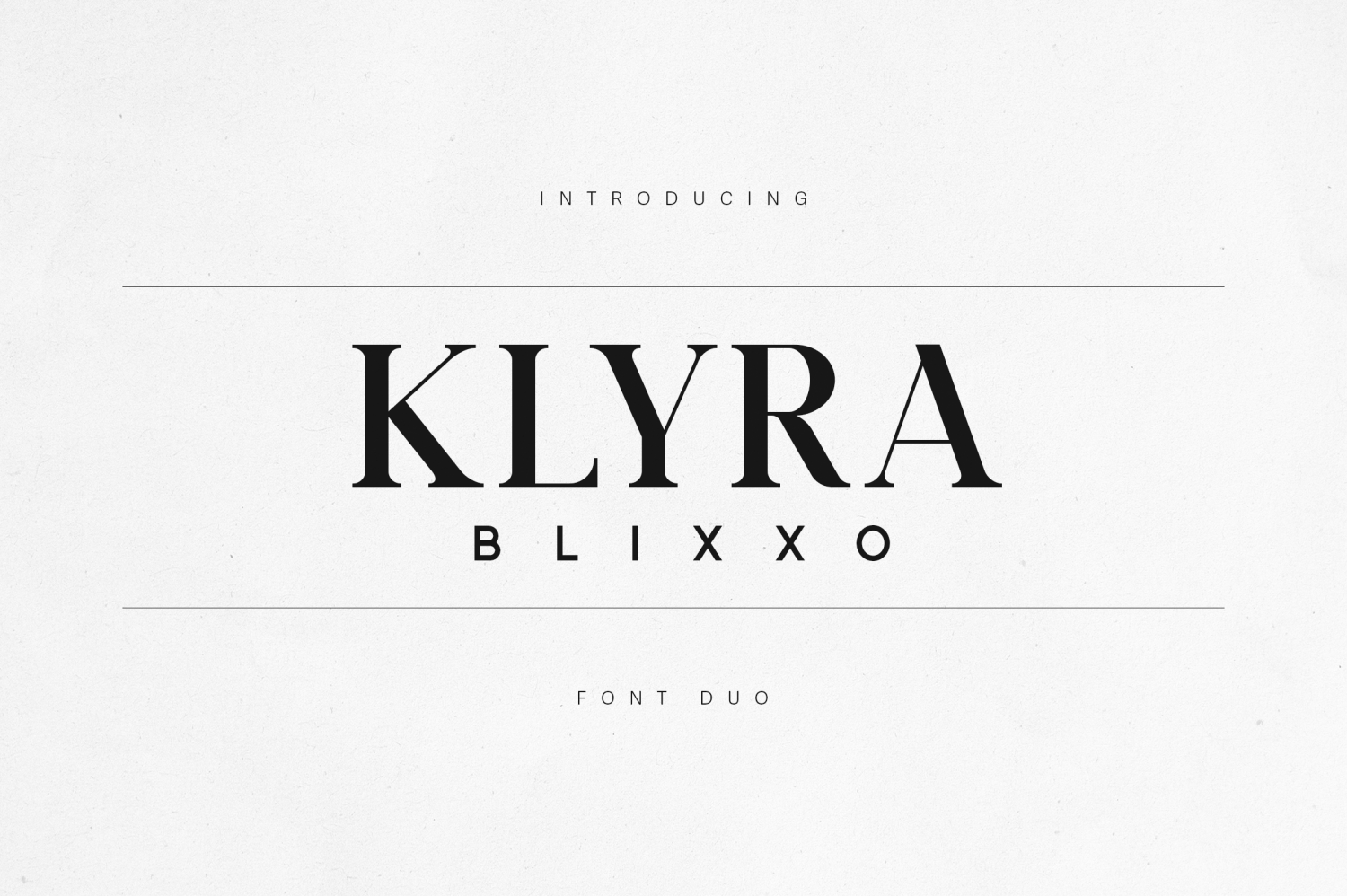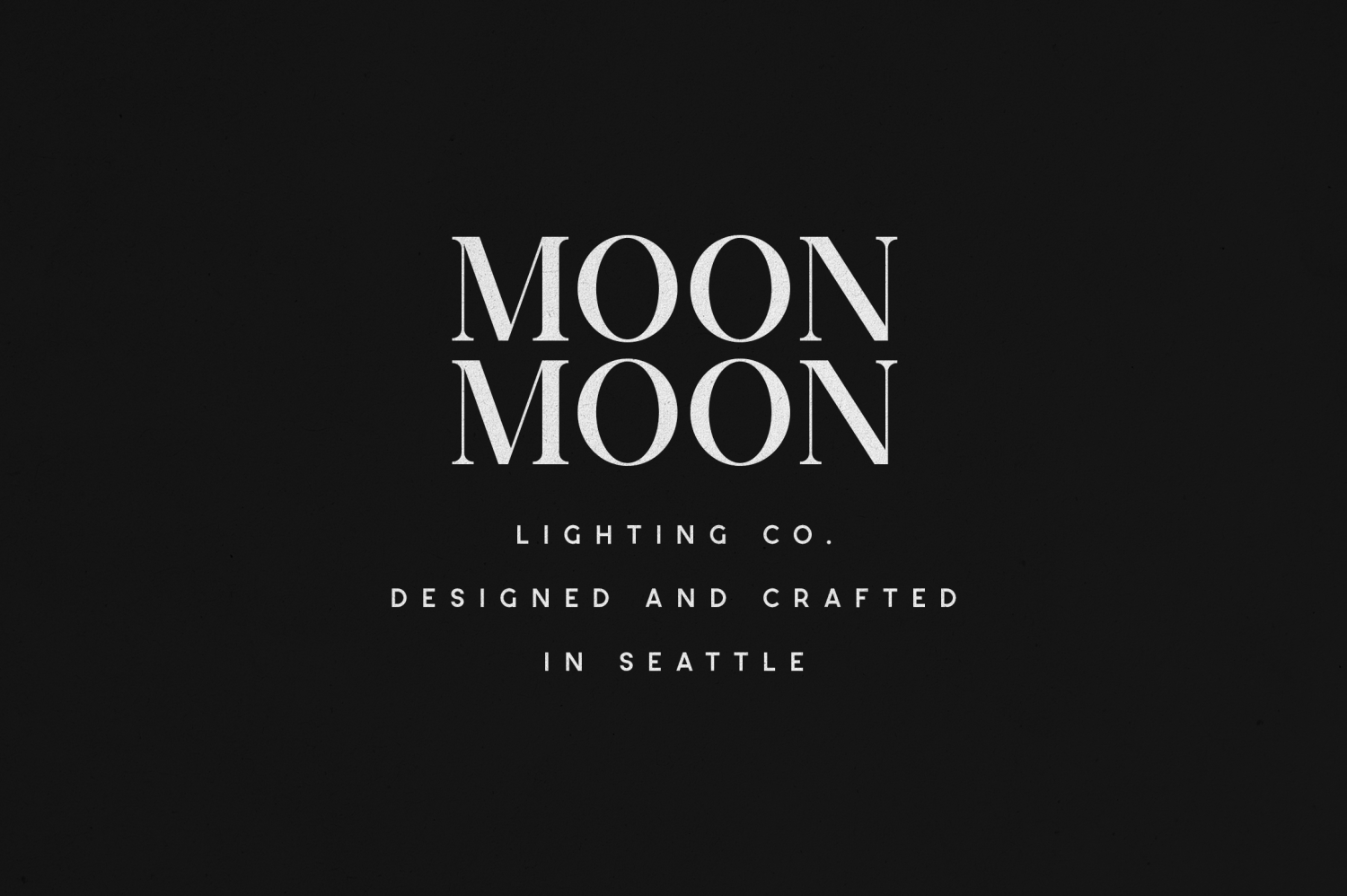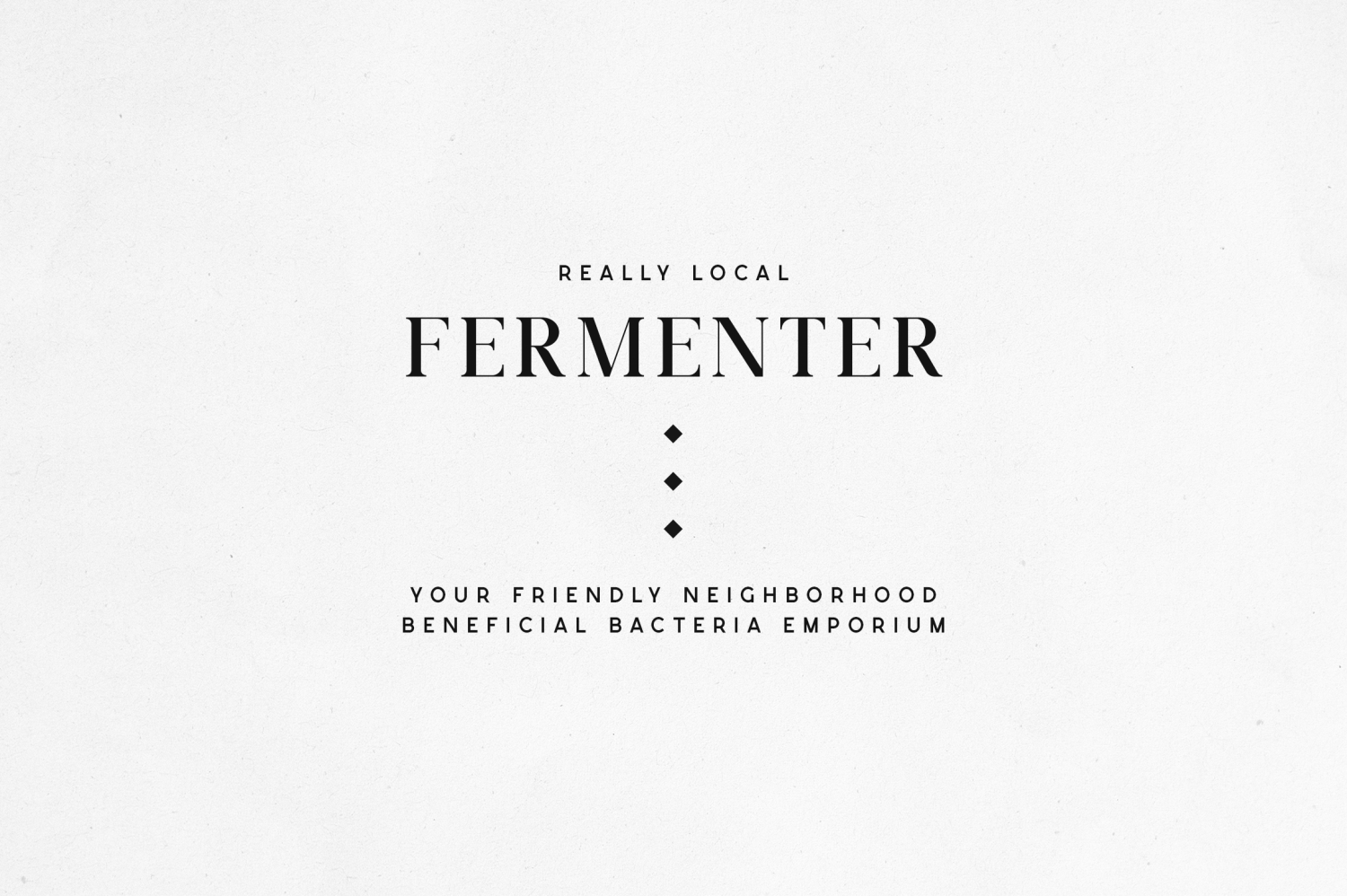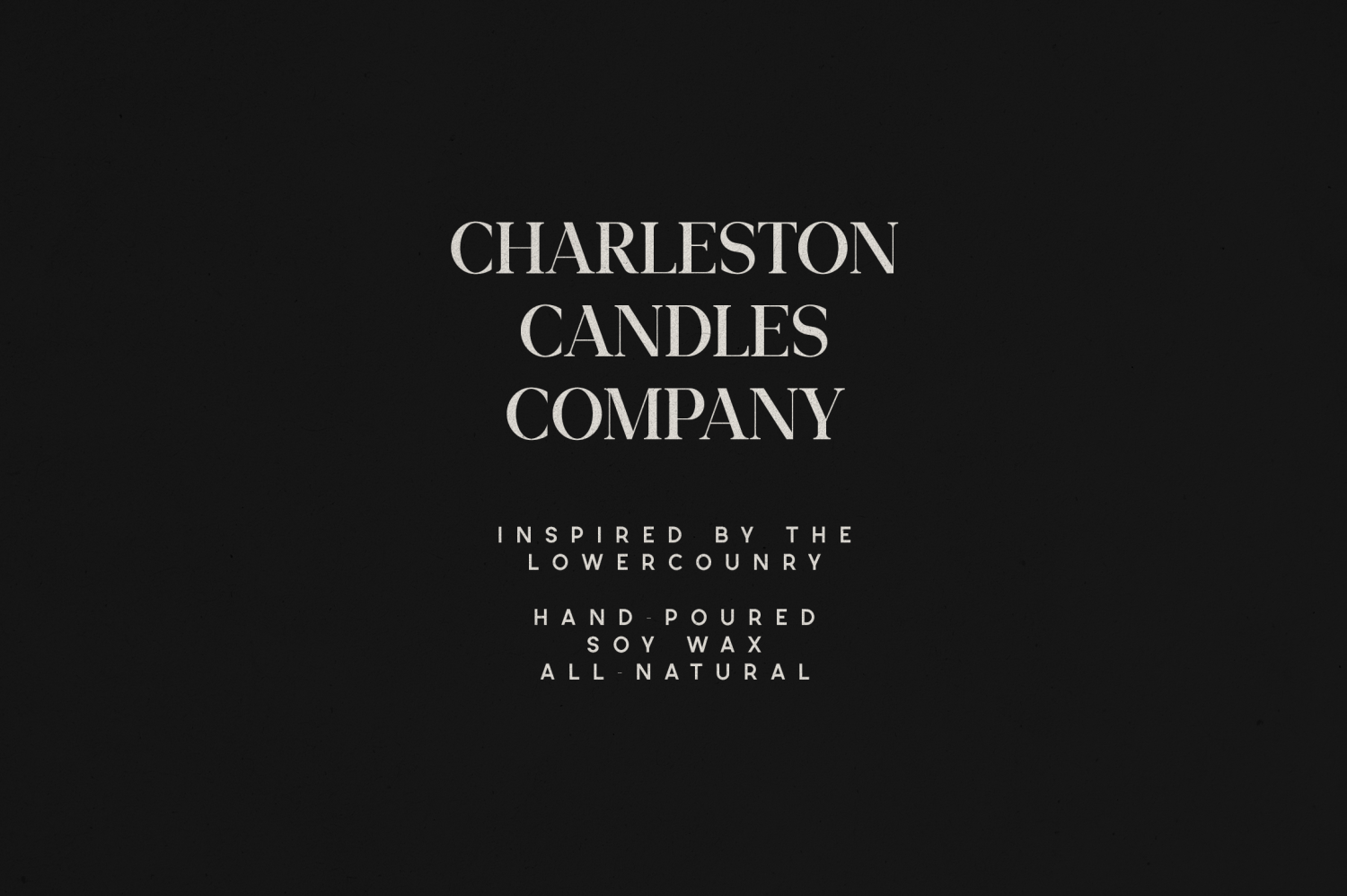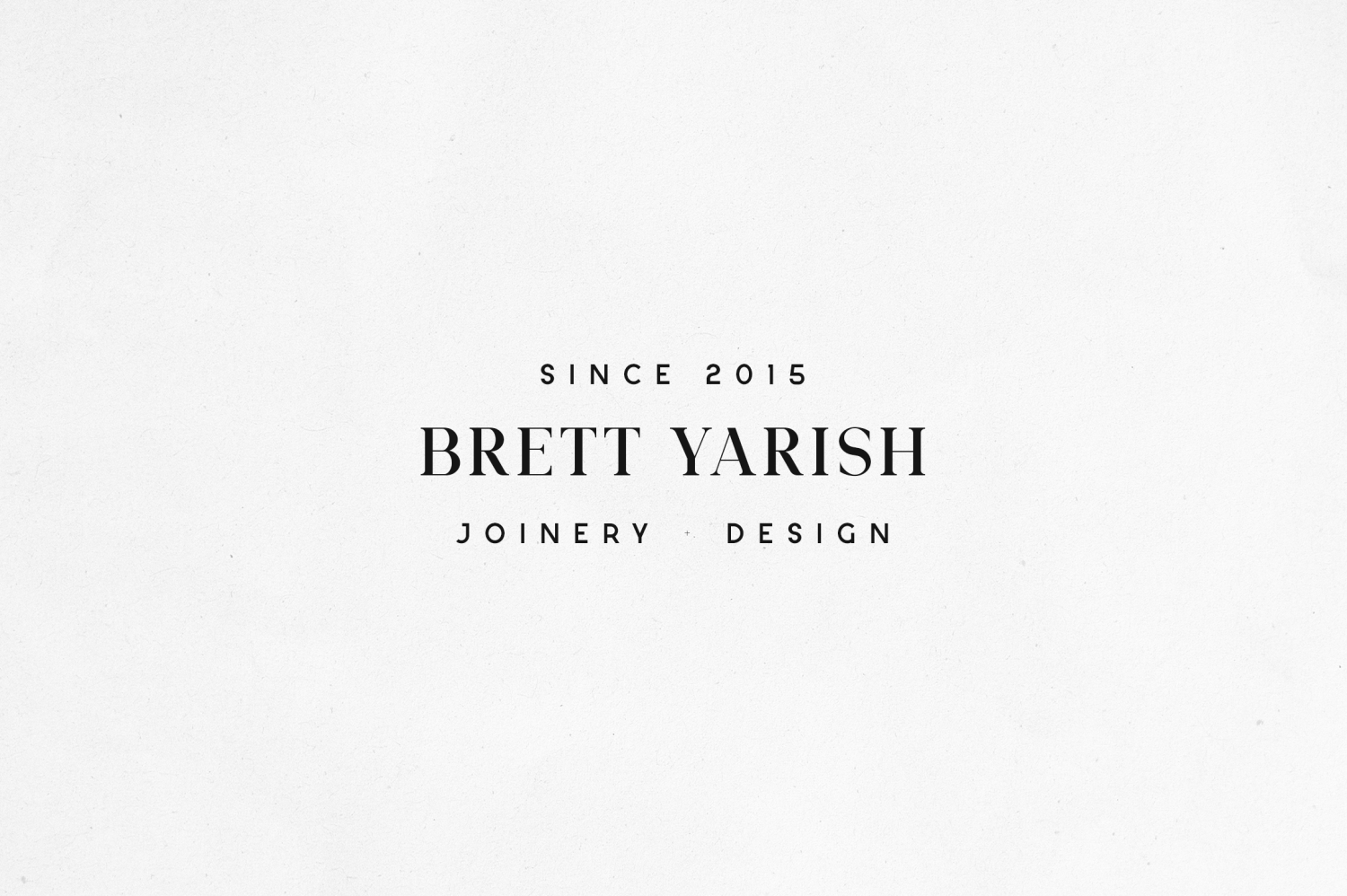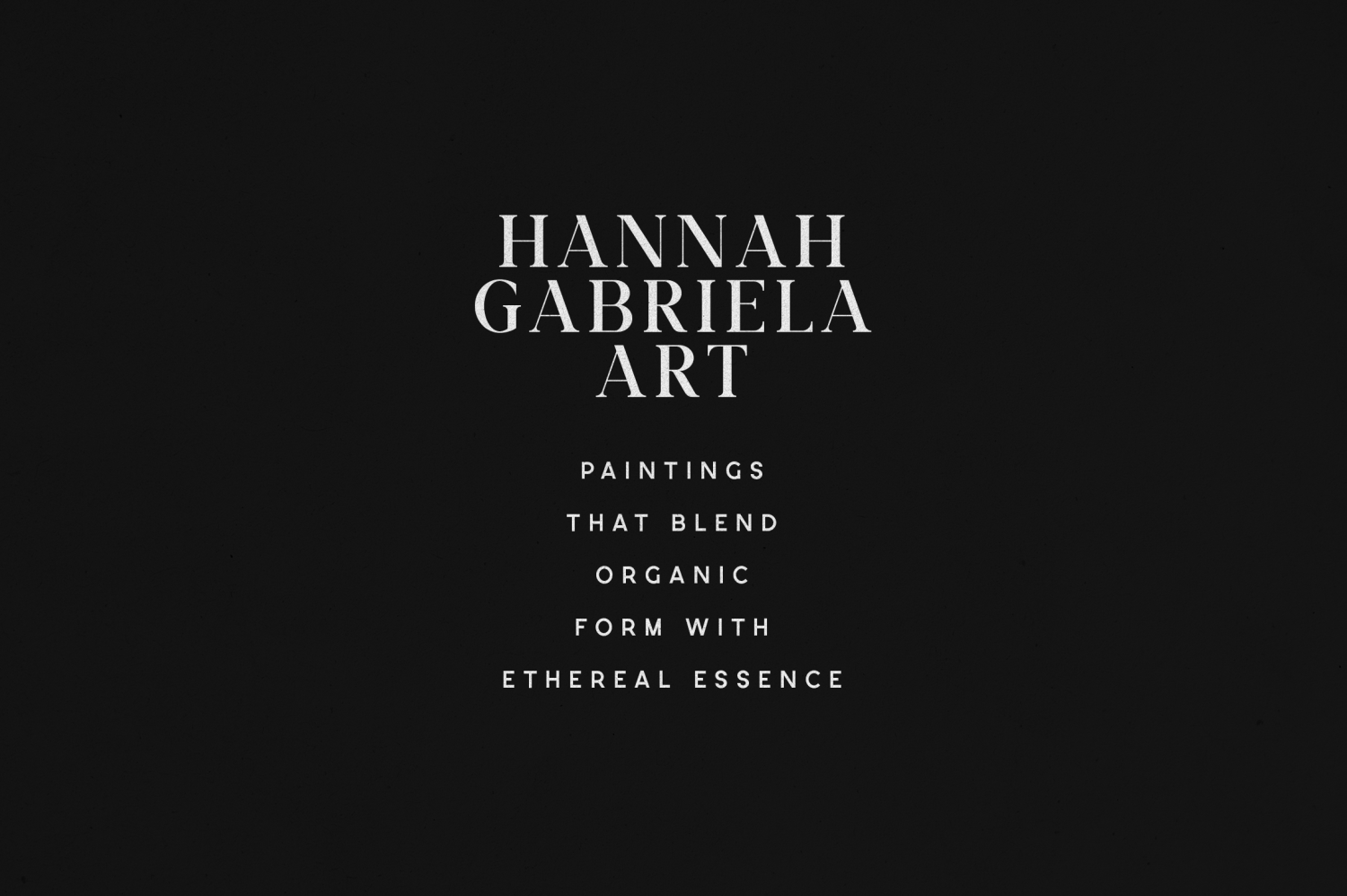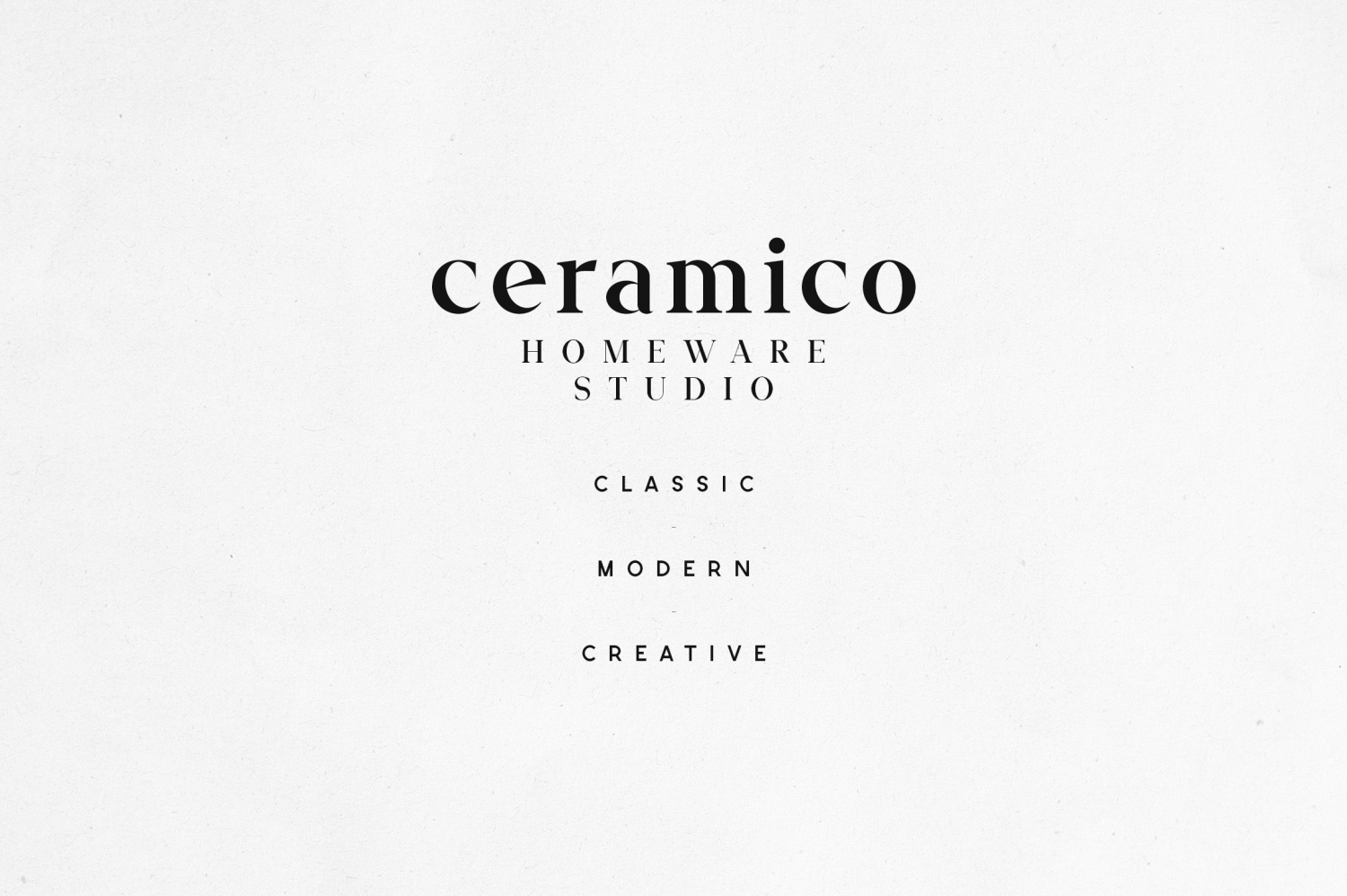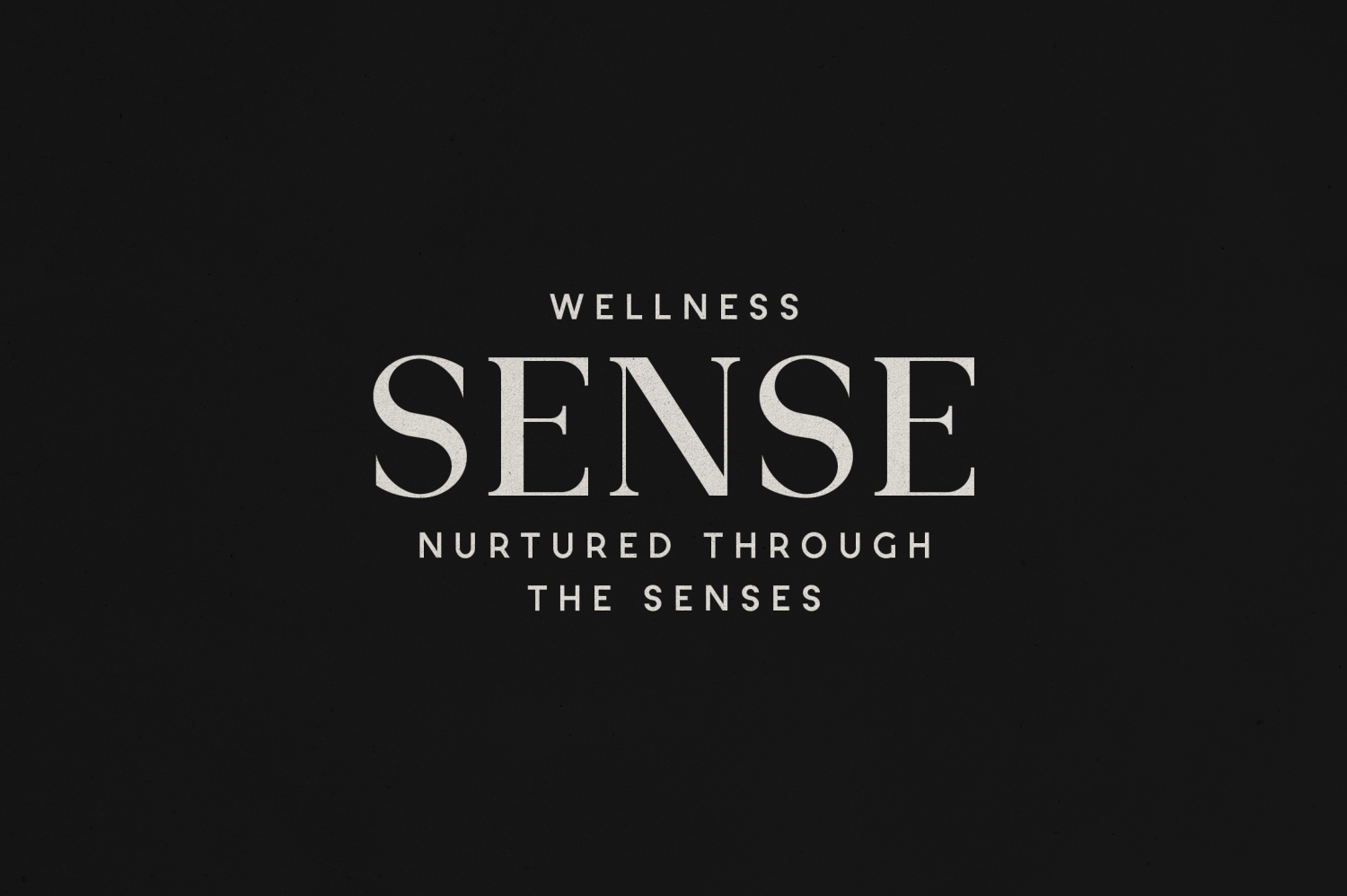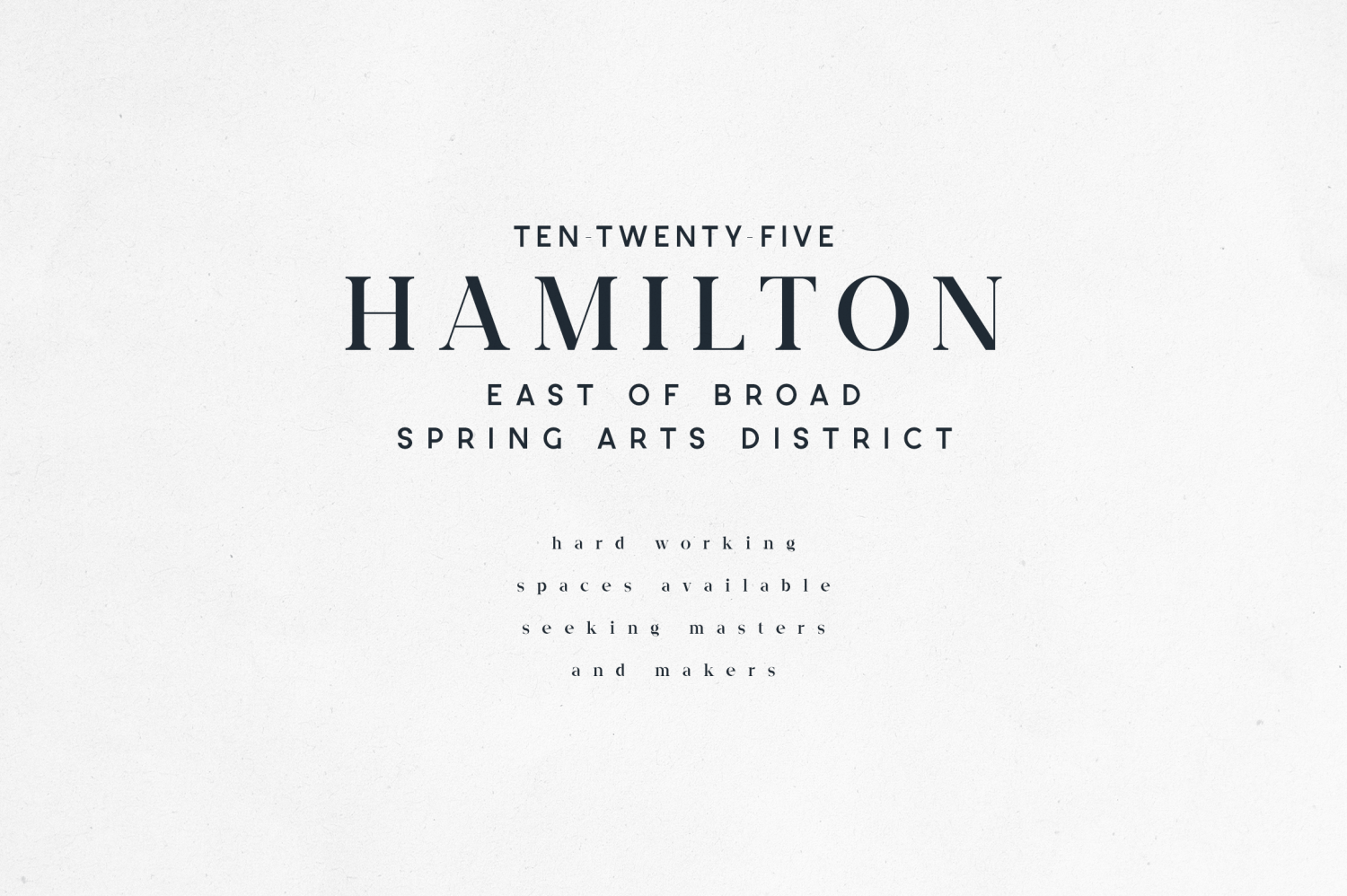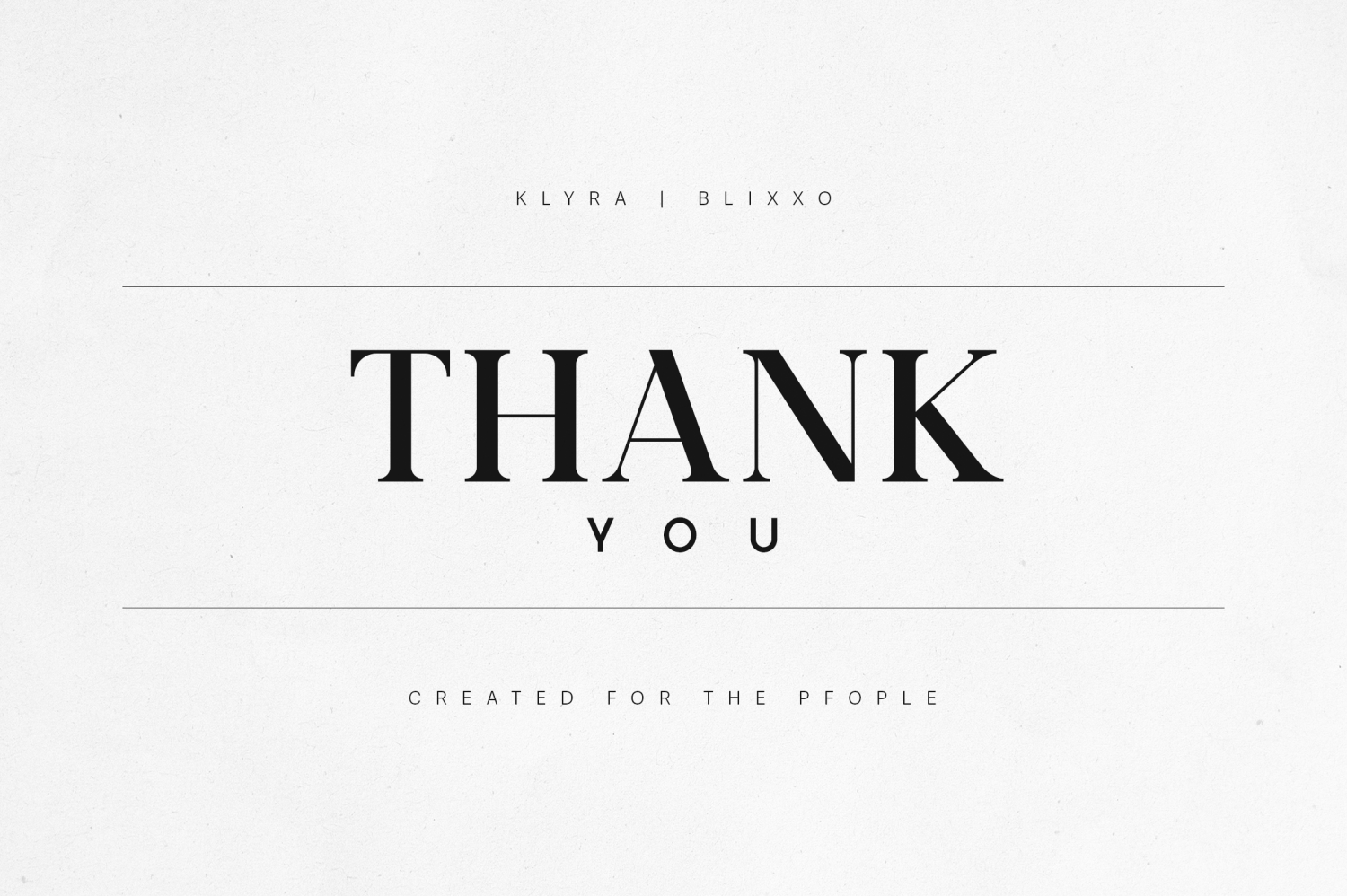
Klyra & Blixxo — Elegant Font Duo
Klyra & Blixxo is a refined font duo that perfectly balances classic sophistication with contemporary minimalism. Klyra features elegant, high-contrast serif details that evoke timeless editorial beauty — while Blixxo, its modern sans-serif companion, adds a clean and sleek balance. Together, they create a harmonious typographic system ideal for luxury branding, magazine headlines, boutique logos, and high-end packaging.
Each letterform is meticulously designed to exude confidence, elegance, and clarity, making this duo a must-have for creatives who want to elevate their visual storytelling. Whether used together or individually, Klyra & Blixxo deliver versatility and sophistication in every project.
Perfect for:
- Luxury logos & fashion branding
- Editorial layouts & lifestyle magazines
- Minimalist packaging & product design
- Beauty, wellness, and home decor brands
- Website headers & social media design
Features:
- Elegant serif & modern sans-serif pairing
- Uppercase & lowercase letters
- Extensive language support (87+ languages)
- Perfect contrast for both print & digital use